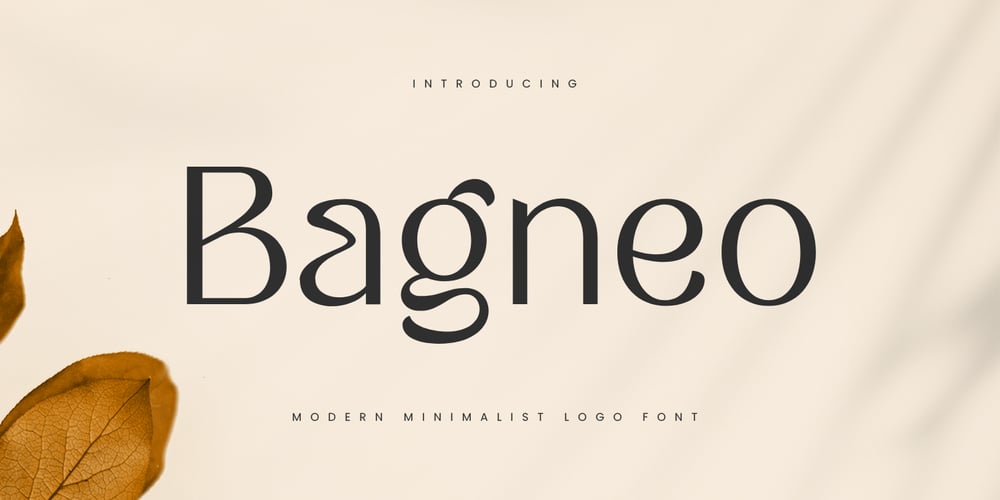
Bagneo Font Family was designed by Zamroni Hamzah and published by Sensatype Studio. Bagneo contains 1 styles and family package options. A Modern Minimalist Logo Font that we created special for Luxury and Fashion branding needs, with extra characters unique shape will be ready to add value of your brand. It so nice to leverage designer or product owner that need solutions to make their design look more classy and modern. And specially for this font, We prepared any unique characters to help you create unlimited variations for your creative needs.Bagneo Modern Minimalist Logo Font ready with: Any options to get creative variations 4 format already Preview as a inspirations that you can do with Bagneo font Ready with Lowercase and Uppercase characters Wish you enjoy our font. ๐